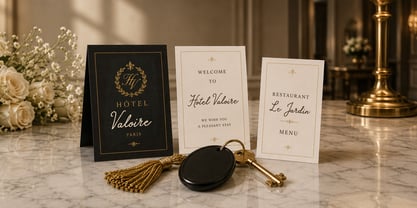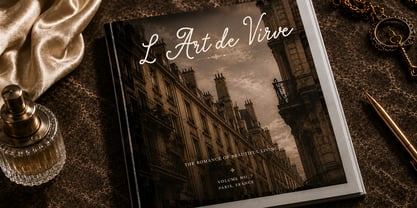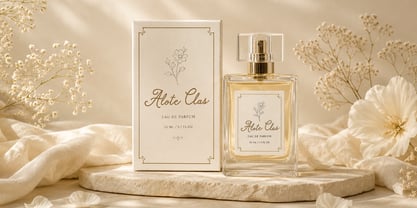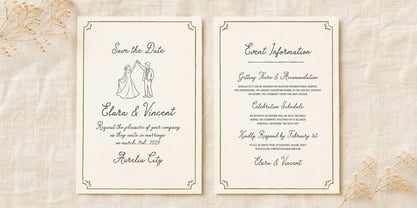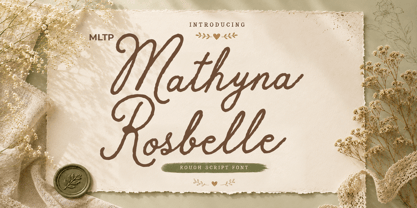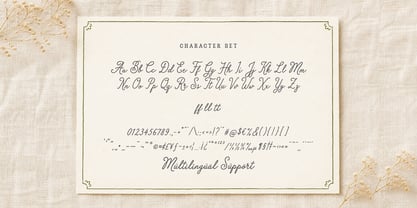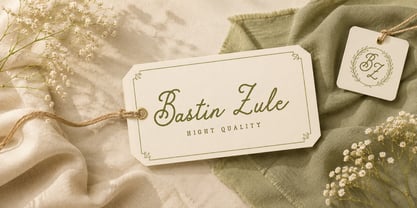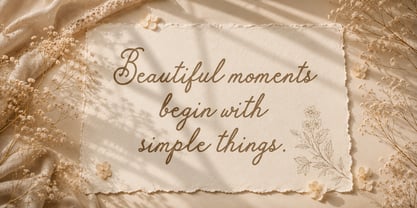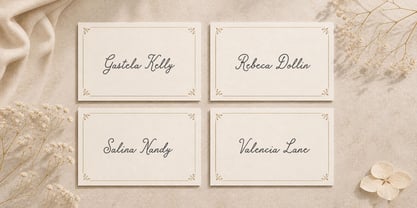
MLTP Mathyna Rosbelle
MLTP Mathyna Rosbelle is an elegant handwritten script font inspired by authentic penmanship, personal letters, and timeless wedding stationery. Featuring graceful curves, flowing connections, and a naturally handcrafted appearance, this font brings warmth, charm, and sophistication to any design project.
Designed with carefully crafted letterforms, MLTP Mathyna Rosbelle includes uppercase and lowercase characters, numerals, punctuation, standard ligatures, and extensive multilingual support, making it suitable for both professional branding and creative personal projects.
Its organic flow and refined handwritten style make it ideal for wedding invitations, luxury branding, logo design, product packaging, perfume labels, beauty products, social media graphics, greeting cards, stationery, editorial layouts, and boutique marketing materials.
Whether you're designing a romantic wedding suite, a premium cosmetic brand, a luxury hotel identity, or elegant quote artwork, MLTP Mathyna Rosbelle delivers a beautiful handwritten aesthetic with exceptional versatility and readability.